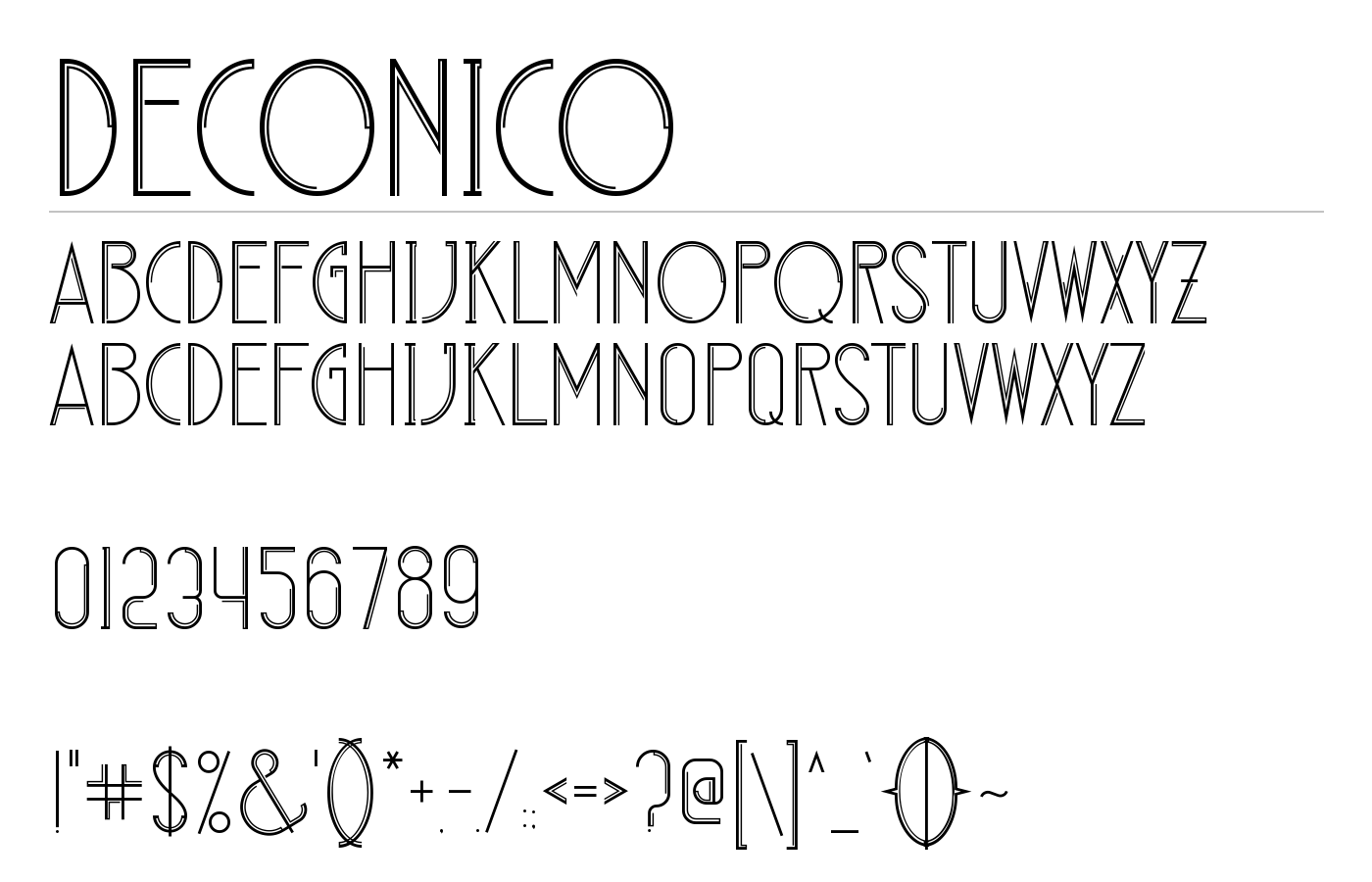
Deconico is a sleek, modern sans serif font characterized by its tall, narrow letterforms and fine line weights that create a light, airy feel. Its geometric shapes combined with subtle decorative elements give it a stylish, art deco-inspired vibe, making it ideal for elegant headlines, fashion branding, and contemporary design projects where a unique, sophisticated touch is desired.
Deconico Font
About Deconico Font